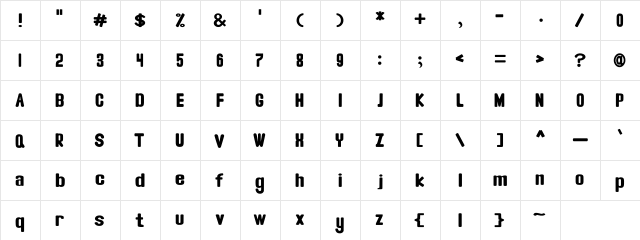
Stines Regular Font Preview
Stines Regular
Stines Regular Font Details
Design Context for Stines Typeface
Stines takes a measured approach to typography — its balanced proportions and neutral character make it a reliable workhorse for both digital and print work.